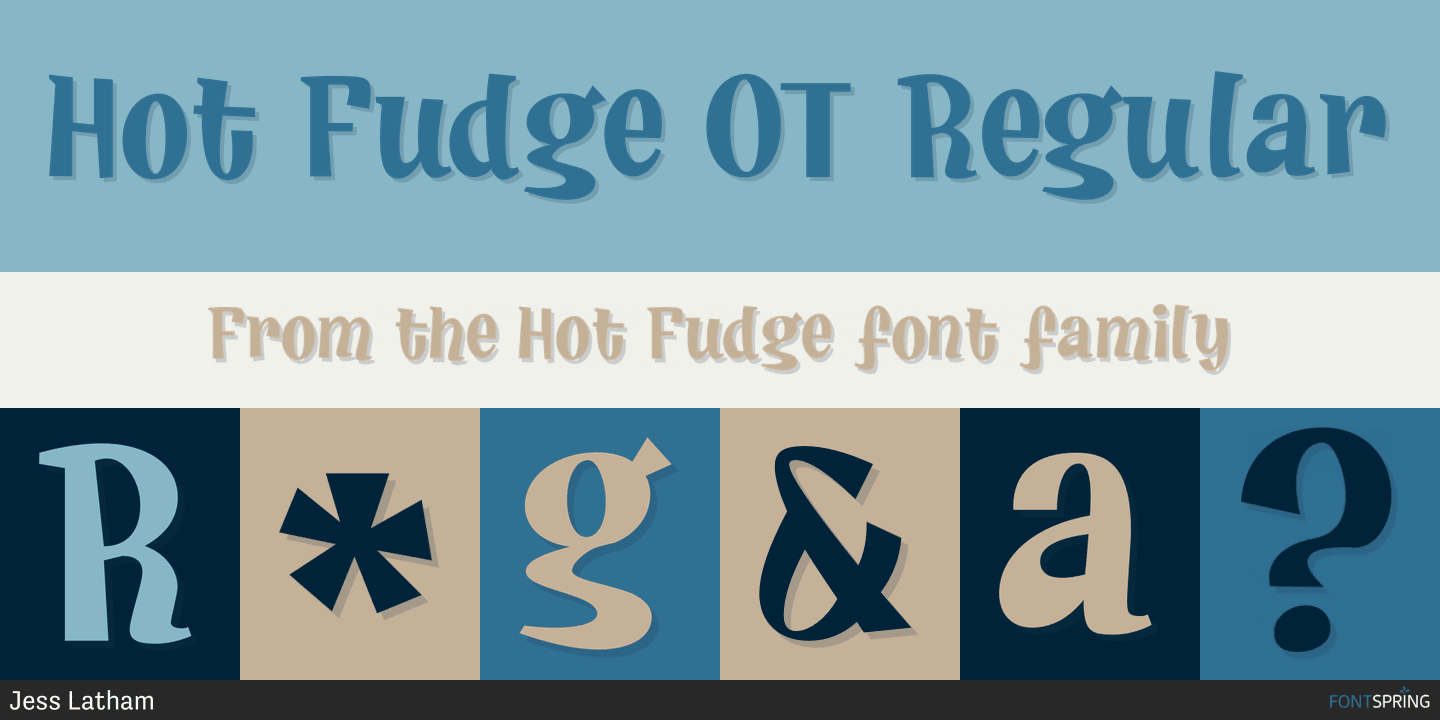
Hot Fudge
Hot Fudge is a kids font published by Blue Vinyl Fonts.
Hot Fudge oooozes a syrupy sensuality. Fun flips and an undulating base line combine to create a whimscial typeface that can be used anywhere you want to add a touch of sweetness. Ride the brown panther today!
Foundry Jess Latham